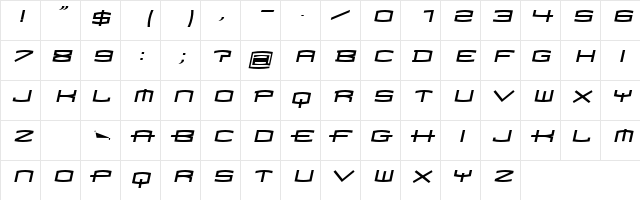
Homoarakhn Regular Font Preview
Homoarakhn Regular
Design Context for Homoarakhn Typeface
Homoarakhn offers clean, dependable letterforms without strong stylistic allegiance, making it a practical choice for designers who need flexibility.
Pro Tip: Pair Homoarakhn with a font of contrasting weight or personality to build a more expressive typographic hierarchy.